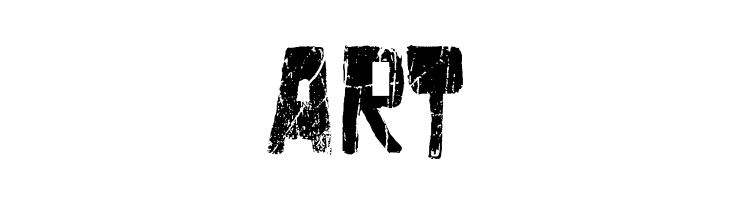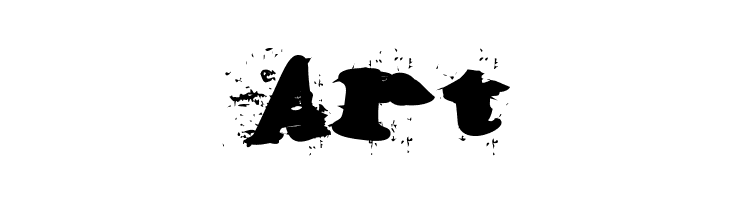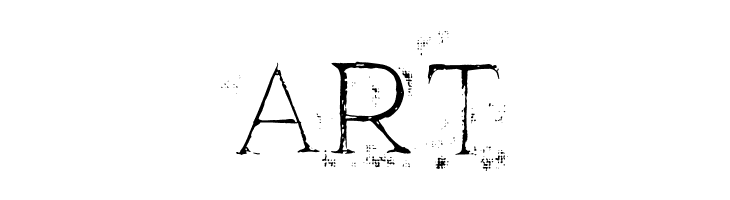
A bold, textured font with a cracked, stone-like appearance.
A bold, distressed font with a grunge style and rugged appearance.
A distressed, hand-drawn font with a vintage, rustic appeal.
A bold, distressed font with a grunge texture, perfect for rugged and edgy designs.
A bold, distressed font with a cracked, rugged texture.
A bold, distressed font with a rugged, grunge aesthetic.
A distressed, textured font with a rugged, vintage feel.
A distressed, grunge-style font with a textured, aged appearance.
A bold, distressed font with a spooky, ghostly aesthetic.
A vintage serif font with a distressed, textured appearance.
A bold, distressed font with a grunge texture and rugged, urban style.
A bold, textured font with a corroded, industrial look.
A distressed, grunge-style font with a bold, textured appearance.
A distressed, grunge-style font with a bold, rugged appearance.
A bold, distressed font with a grunge texture and vintage appeal.
A bold, distressed font with a grunge aesthetic and geometric shapes.
A bold, distressed font with a gritty, urban aesthetic.
A distressed, vintage-style font with a textured, eroded appearance.
A bold, distressed font with a rugged, textured appearance.
A bold, distressed font with a grungy, textured appearance.
A bold, distressed font with a gritty, textured appearance.
A bold, industrial font with a distressed, eroded effect for a rugged look.
A bold, decorative font with a distressed, vintage texture.
A bold, distressed italic font with a dynamic, edgy style.
A bold, distressed, and condensed font with a rugged, edgy aesthetic.
A bold, distressed font with a rugged, chaotic appearance.
A bold, distressed font with a grunge aesthetic and expanded width.
A bold, distressed font with a rugged, grunge-like aesthetic.
A bold, distressed font with a grunge, vintage style.
A bold, cracked texture font with a rugged, distressed style.
A bold, distressed font with a rugged, vintage appearance.